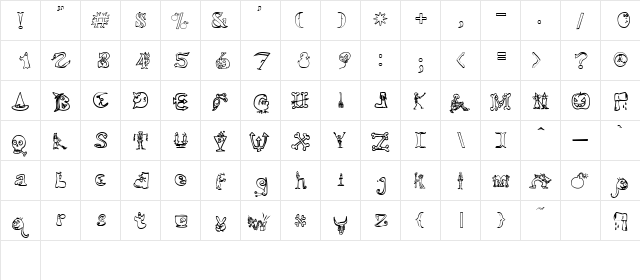
Halloween Match Regular
Design Context for Halloween Match Typeface
Halloween Match is a composed and adaptable typeface that performs quietly and consistently across a wide range of design contexts.